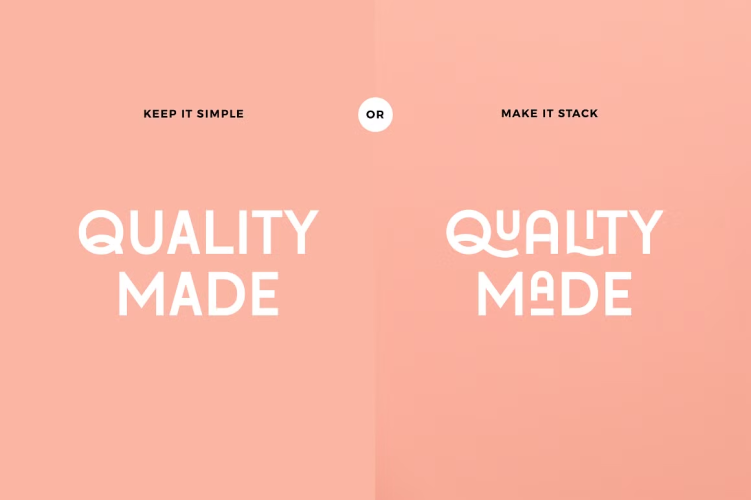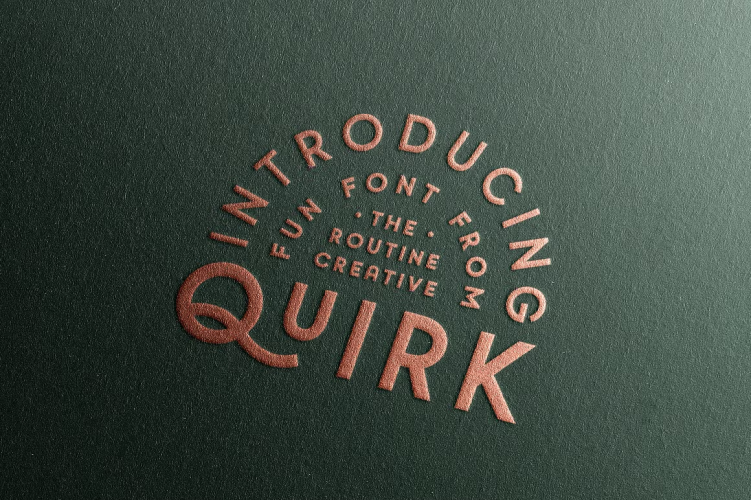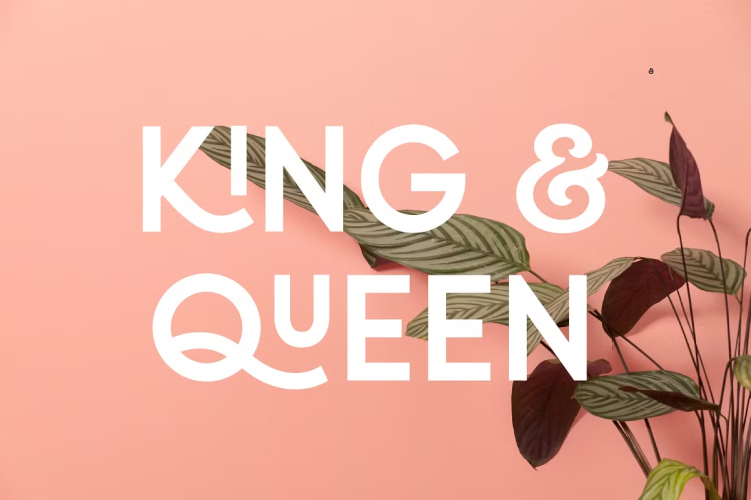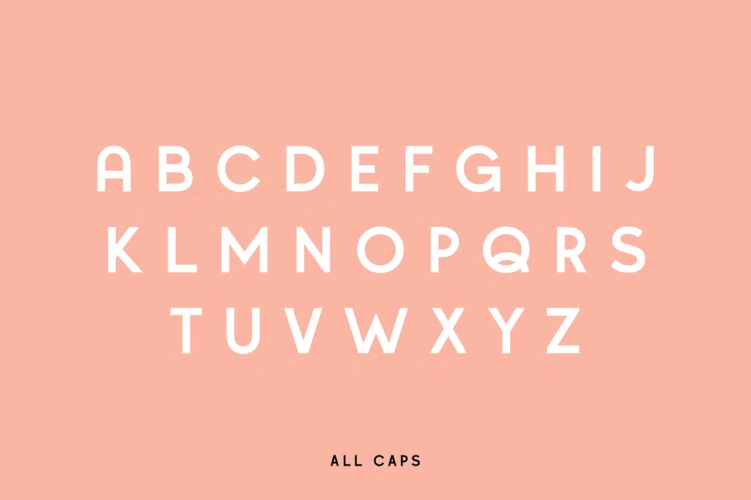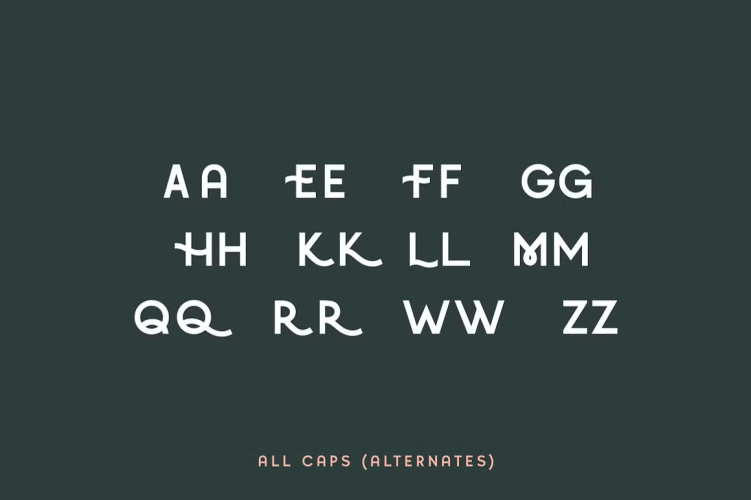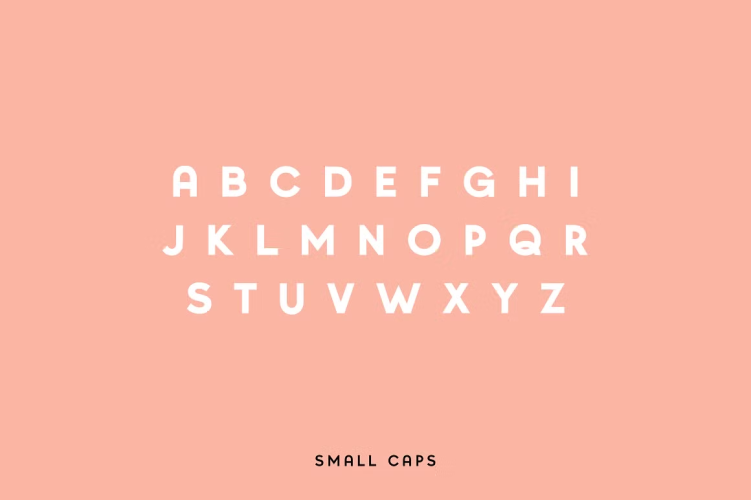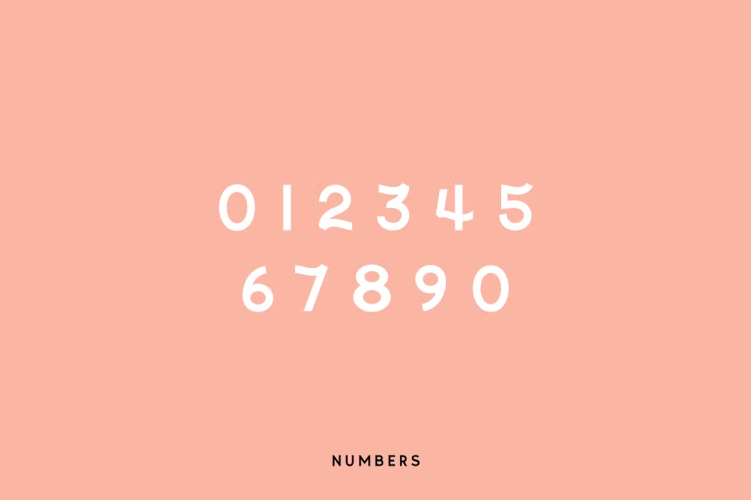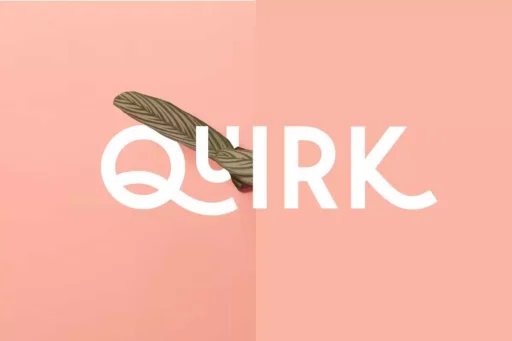
Quirk Font
Quirk is a unique and fun stackable display font. Its playful and creative nature makes it suitable for various design projects. The standout feature of Quirk is its unique stacking ability, which makes designing with it a fun experience.
This font is well suitable for many purposes and is well combined with bold sans serifs which create a balanced and striking contrast. Quirk is a perfect choice if you want to incorporate it in your designs like making a logo, creating a poster or making an engaging web design.
The variety Quirk presents in the capitalization of the font is one of the distinctive key features of this font. This makes it have a bold and proud appearance, which is why it is suitable for headings, titles, and places where you want to be in control.
Apart from that, Quirk is also bundled with lots of features, allowing you to pick the ones that you find the most appropriate when creating your designs.
Quirk, a font with a lot of visible features, is a multi-purpose font. ”It consists of All Caps and Small Caps Alternate Characters, thus, creating a wide range of design options. The font uses numbers that follow the letter patterns, thus, giving your text a harmonious and consistent look.
Where Quirk Font works best
Thumbnails and covers
Quirk Font is built to be recognised small. Three words, high contrast, and it survives being scaled to a phone screen.
Event and match posters
Display letters at full width make a date and a name readable across a room, which is all a poster has to do.
Merch and streetwear
Heavy display shapes print cleanly on fabric and stay legible when the garment moves.
What kind of work does Quirk Font suit?
It sits in the Display Fonts group and reads as bold, branding, creative, display. That makes it a candidate wherever those qualities help: headings, packaging, social graphics and brand work. Set it at the size you plan to use before deciding.